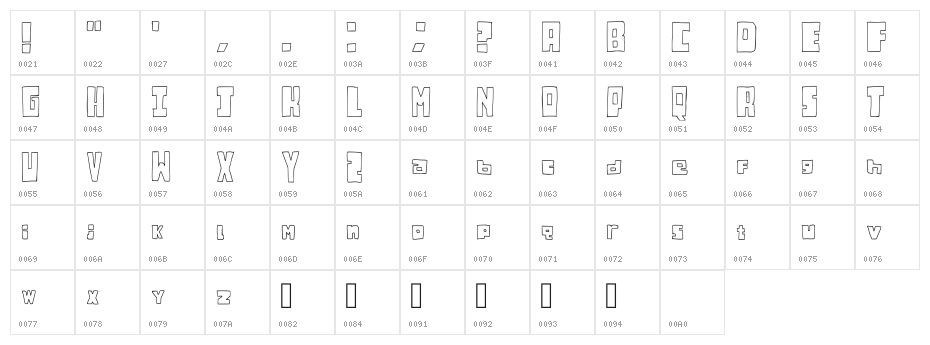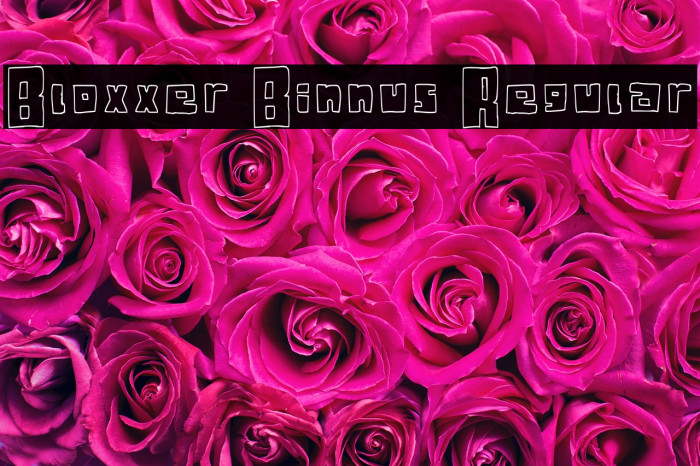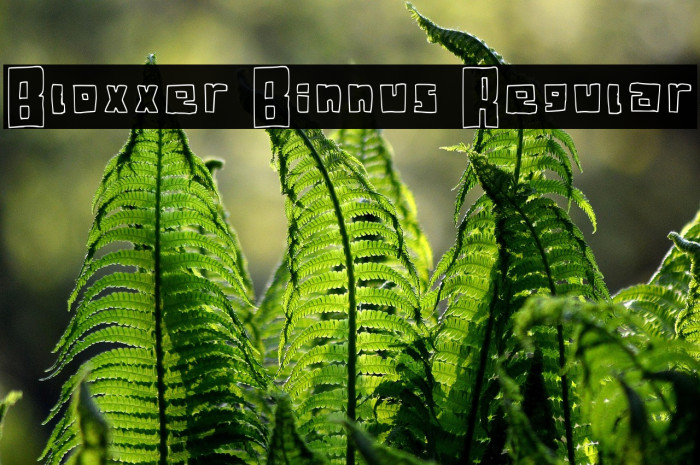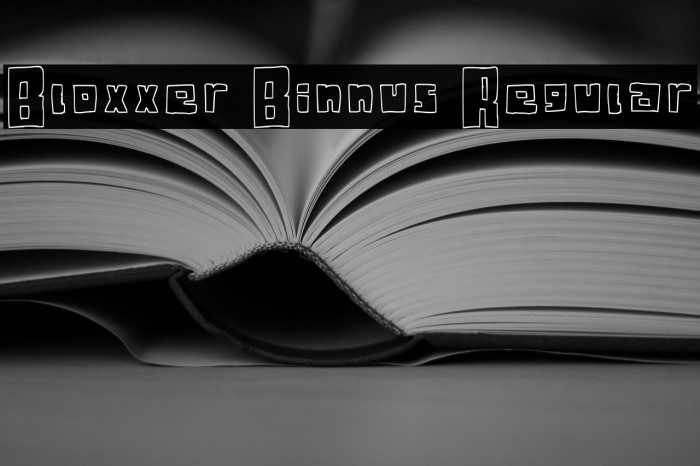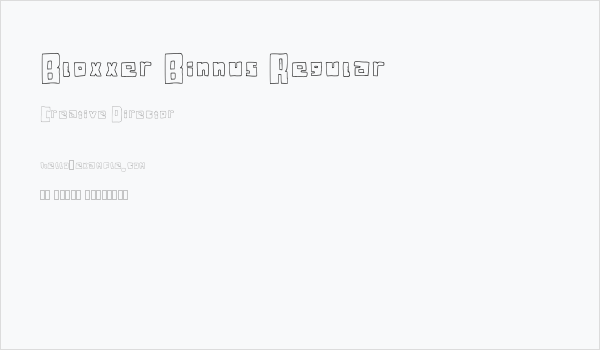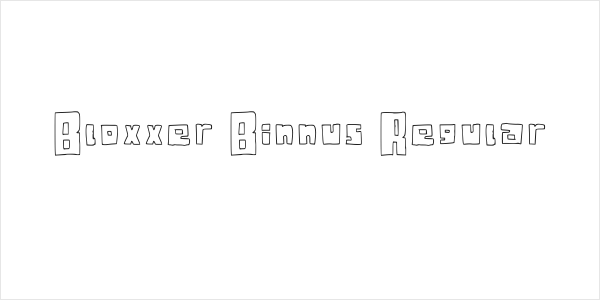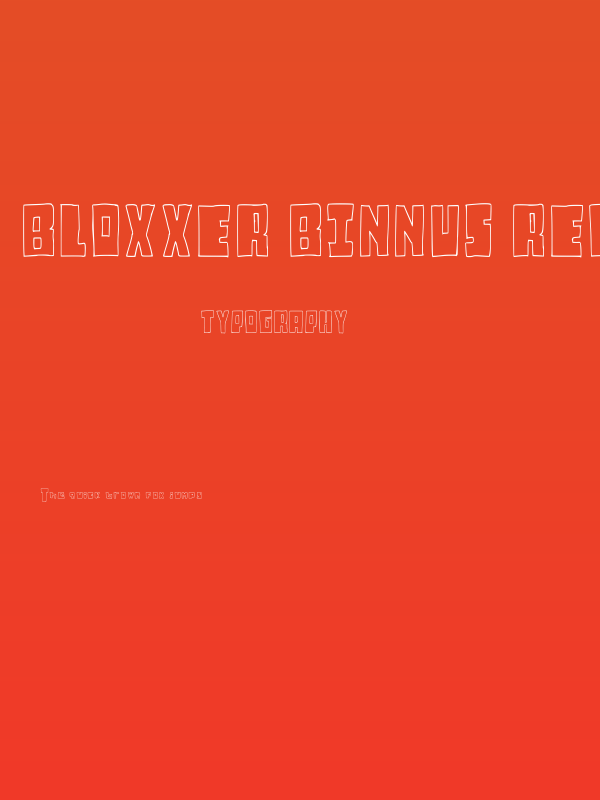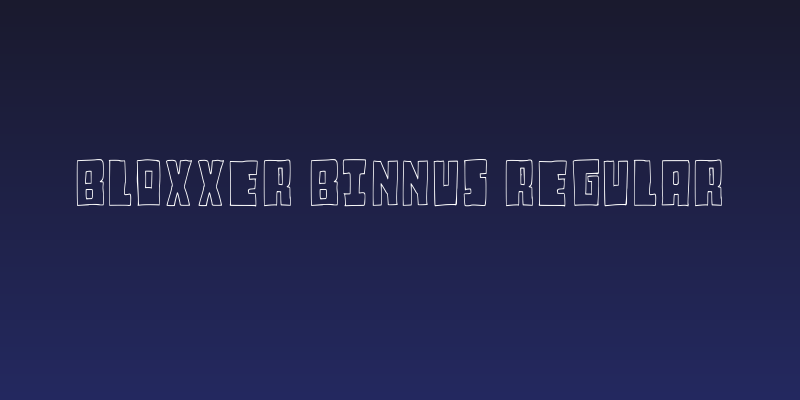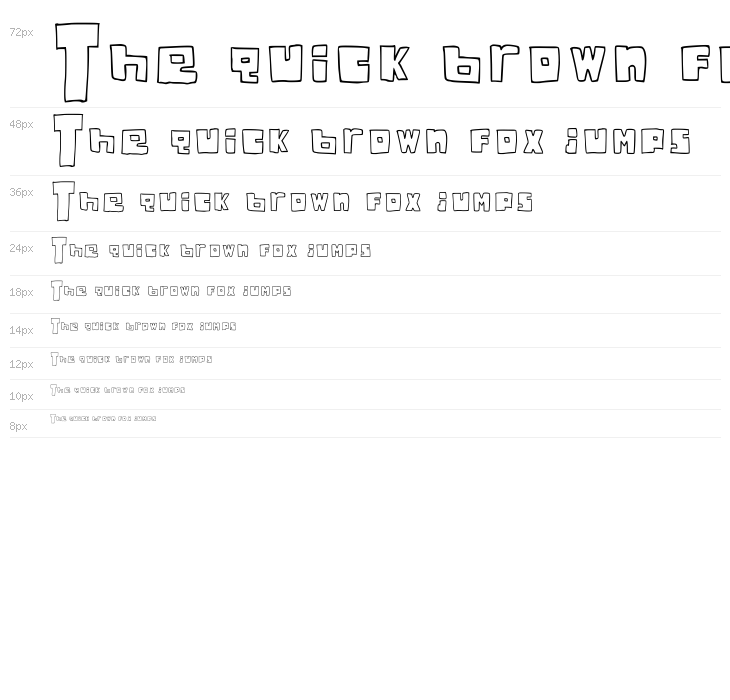
Bloxxer Binnus Regular Font
Bloxxer Binnus Regular Description
This font features a playful, blocky design with a hand-drawn aesthetic. Each character is outlined with a slightly uneven stroke, giving it a casual and informal appearance. The uppercase and lowercase letters maintain a consistent geometric structure, with straight lines and right angles dominating the design. The numbers and special characters follow the same style, ensuring uniformity across all glyphs. The font's unique style makes it stand out, ideal for creative projects that require a fun and engaging look.
| Overall Style | Playful, Casual |
| Proposed Projects | Ideal for children's books, comic strips, playful branding, and creative posters. |